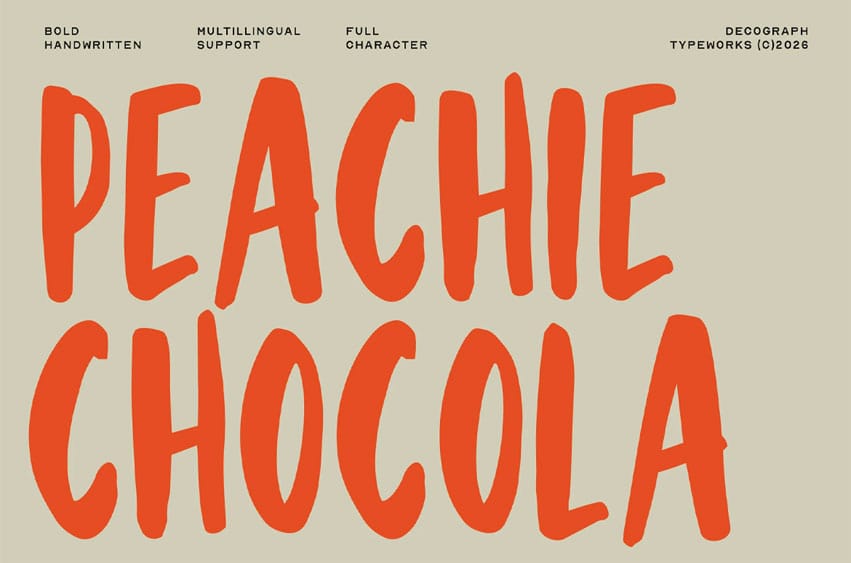
Peachie Chocola Font is a bold handwritten food display font inspired by the rich and playful personality of artisan desserts, handcrafted chocolates, bakery products, and sweet culinary branding.
Featuring organic letterforms, natural imperfections, and a friendly handcrafted appearance, this typeface creates a warm and appetizing visual impression.
- Uppercase Characters
- Lowercase Characters
- Bold Handwritten Style
- Food Branding Ready
- Organic Letterforms